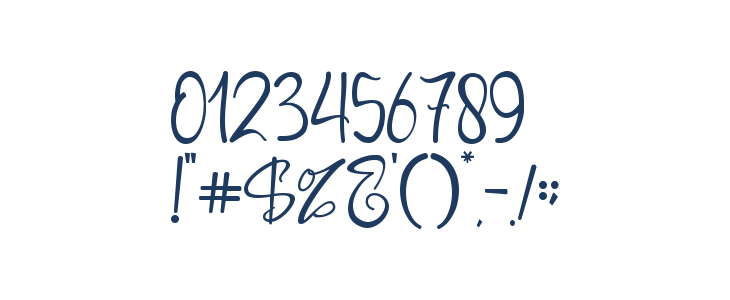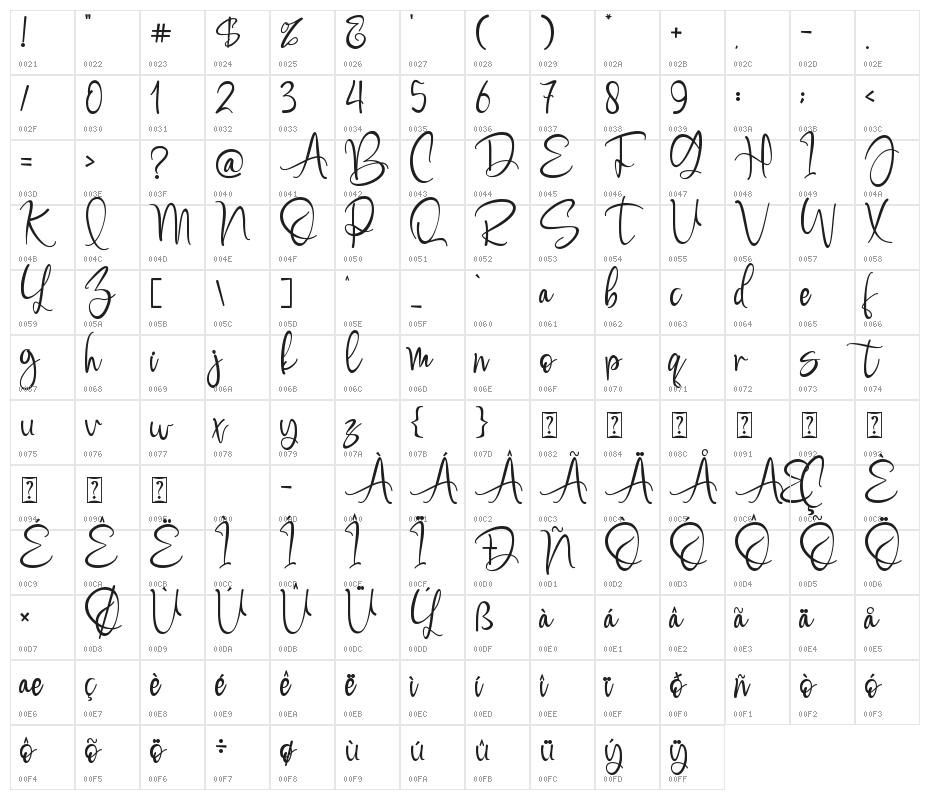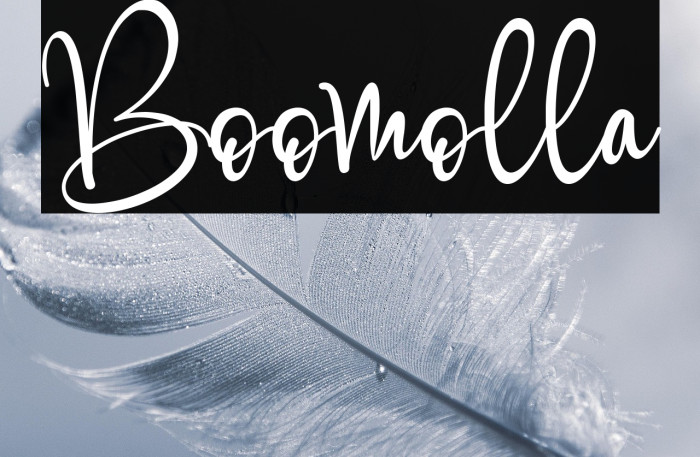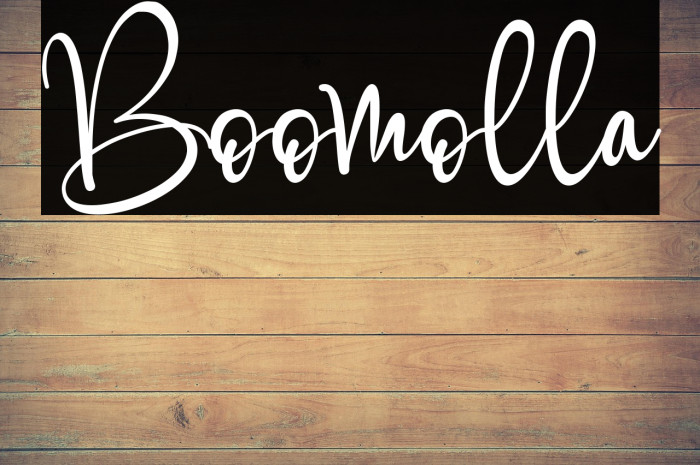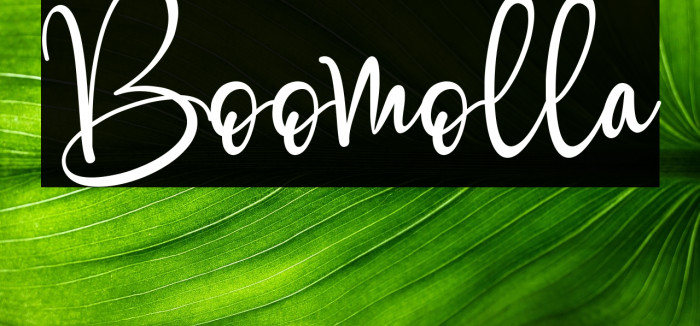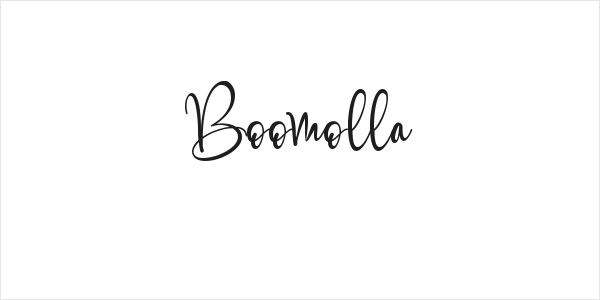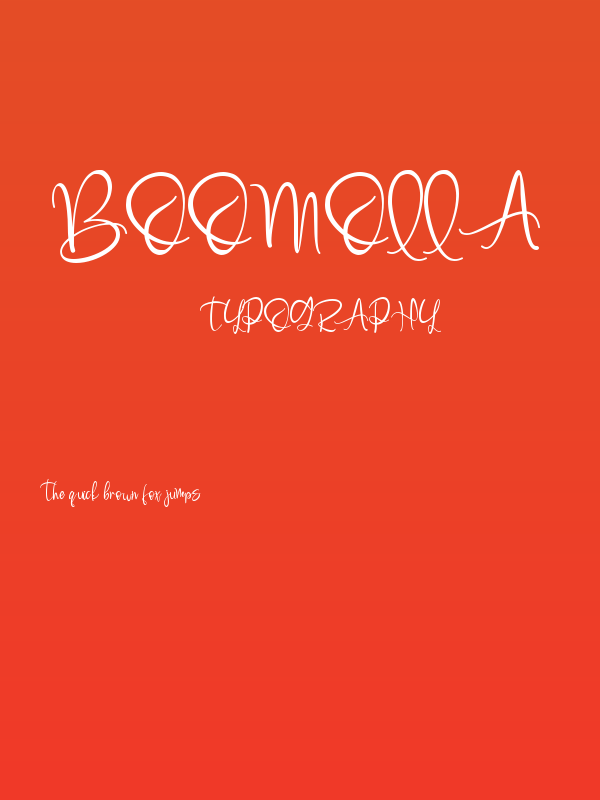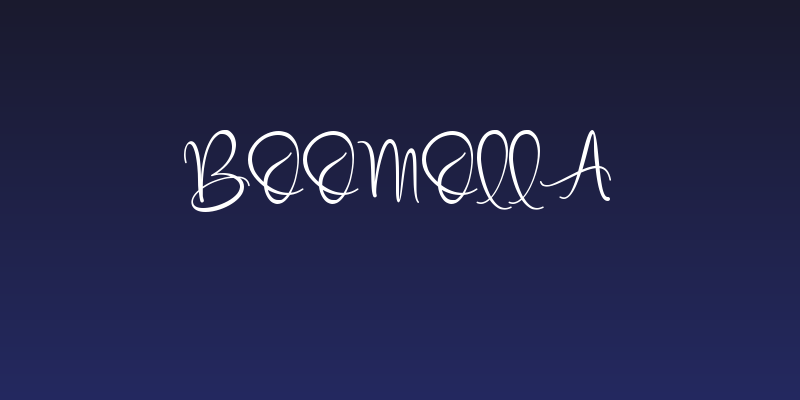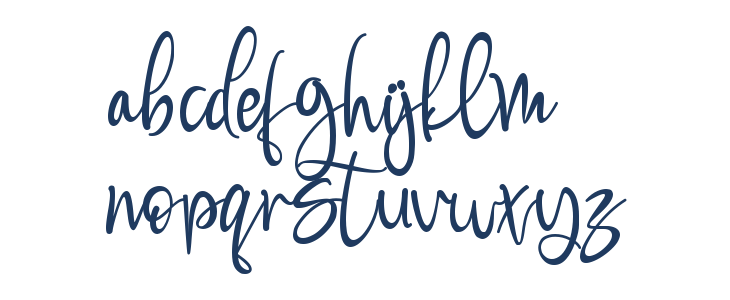
Boomolla Font
Boomolla Description
This font features a playful and energetic script style with a handwritten appearance. The uppercase letters are elegantly connected, creating a flowing and dynamic look. The lowercase letters maintain a consistent and smooth stroke, enhancing readability while preserving the font's artistic flair. Numbers and special characters are designed with the same lively touch, making them suitable for creative projects. The overall design is modern and expressive, ideal for capturing attention and conveying a sense of fun and creativity.
| Use Case | Logos, Headlines, Creative projects |
| Proposed Projects | Ideal for greeting cards, invitations, branding, social media graphics, and creative posters. |